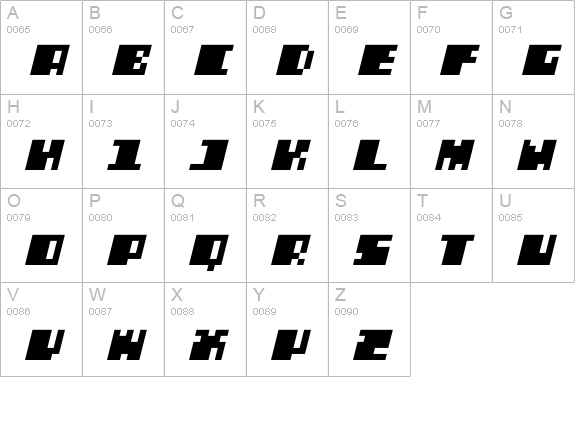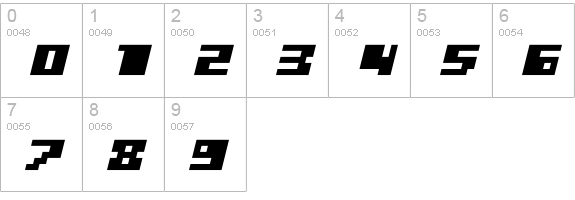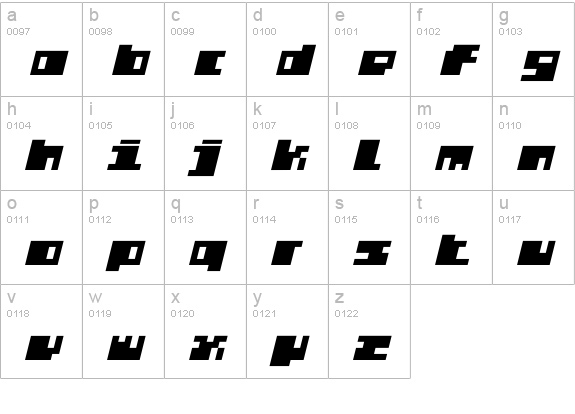
DS PTRLSuperPlus font is a versatile and stylish typeface that exudes a sense of modernity and sophistication. With its clean lines and unique design, this font is perfect for a wide range of projects, from branding to editorial design. The bold and sleek characters make a strong statement, while maintaining a sense of elegance and professionalism. What sets DS PTRLSuperPlus font apart is not only its aesthetic appeal, but also its accessibility. This font is available for free download at FontsMarket.com, making it a valuable resource for designers, creatives, and anyone looking to elevate their projects with a touch of sophistication. Whether you're working on a logo, website design, or print materials, DS PTRLSuperPlus font is sure to make a lasting impression.